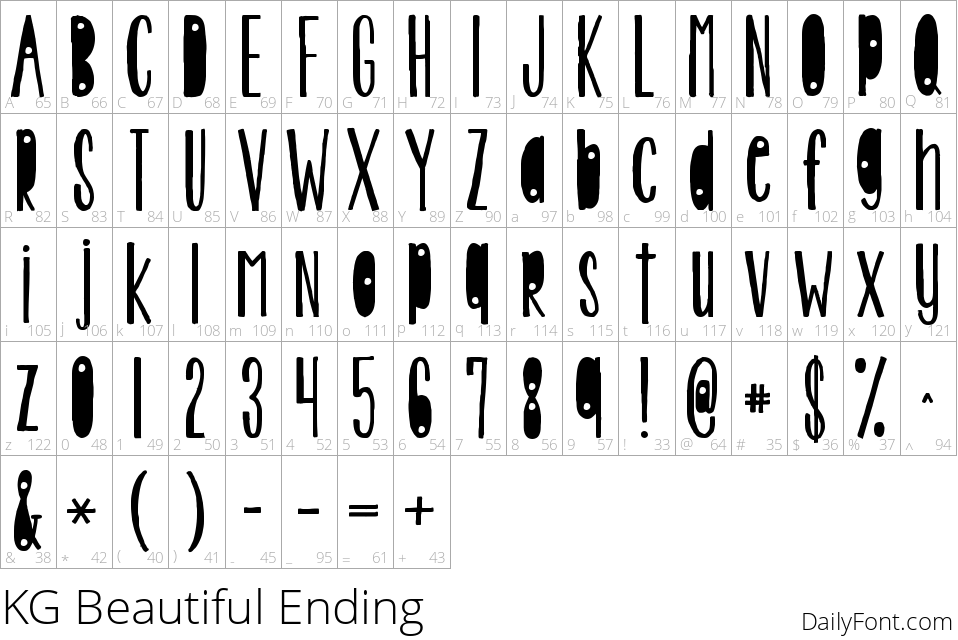
Kg Beautiful Ending by Kimberly Geswein
Whimsical hand-drawn font with playful illustrations and elegant typography ideal for children's projects, gift tags, or creative designs.